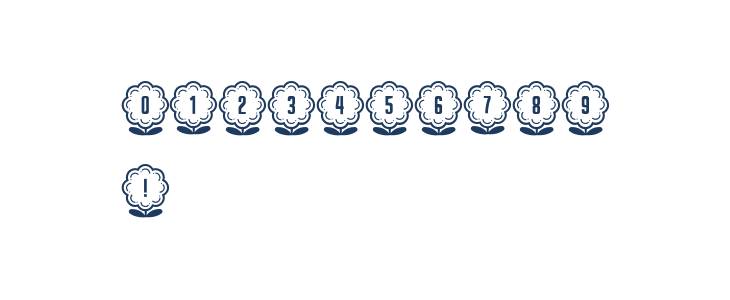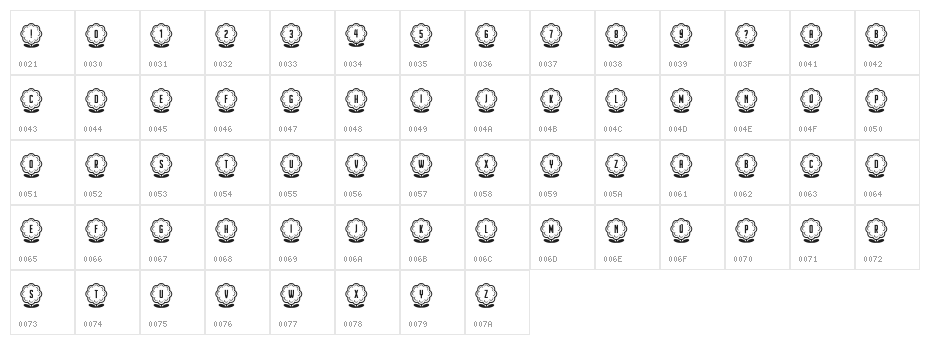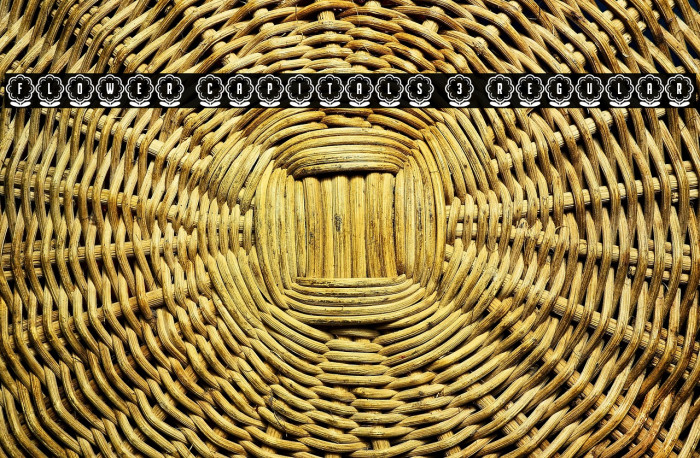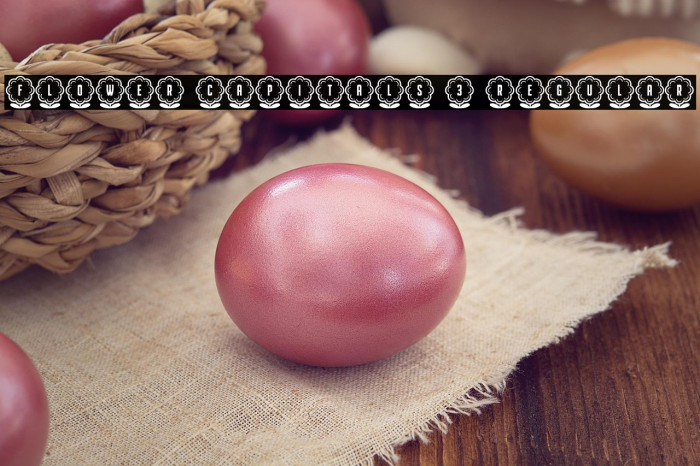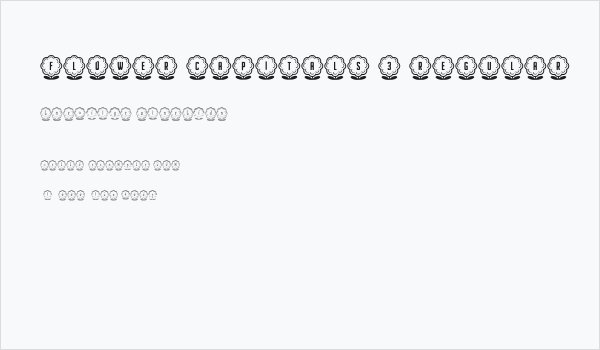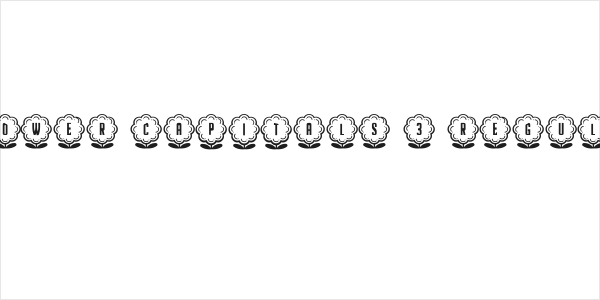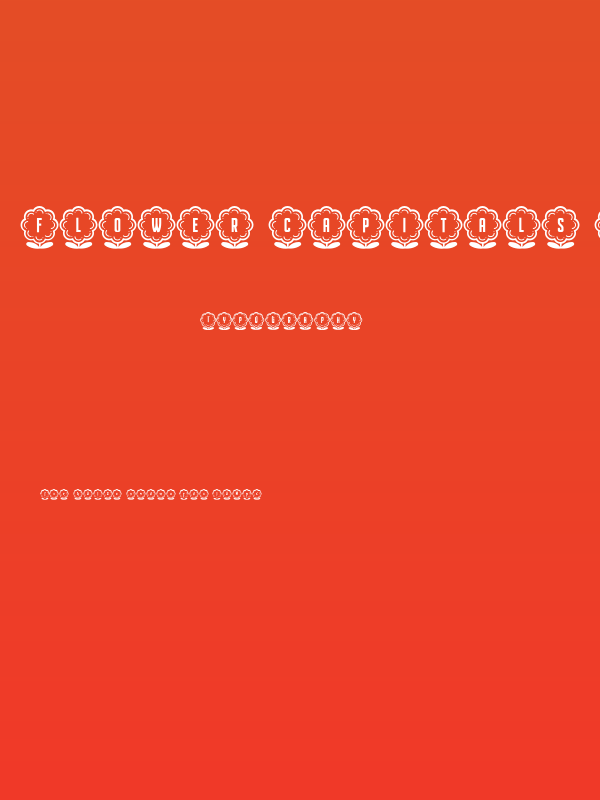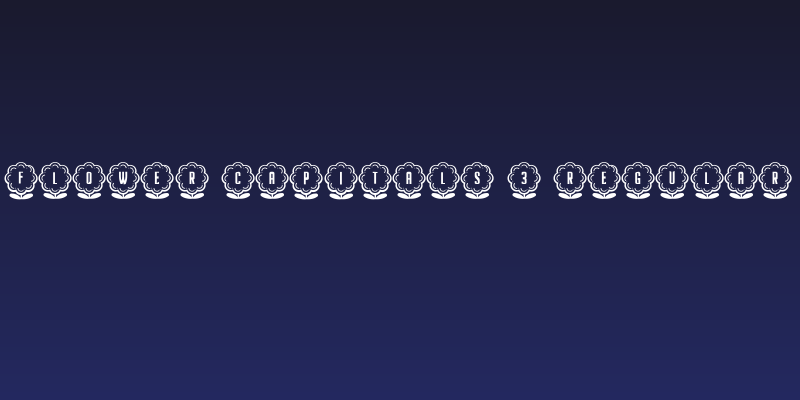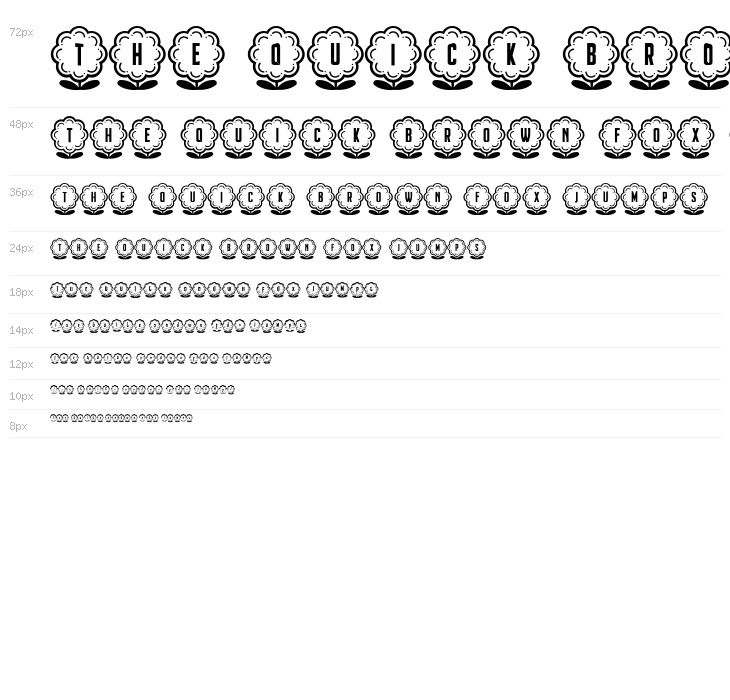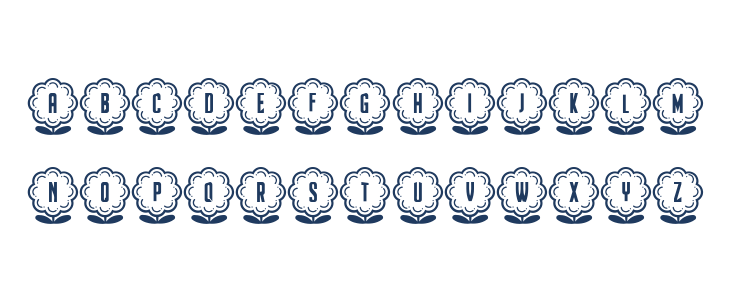
Flower Capitals 3 Regular Font
Flower Capitals 3 Regular Description
This decorative font features characters encased within stylized flower shapes, creating a playful and whimsical appearance. Each letter and number is centered within a bold, outlined floral design, making it stand out with a unique charm. The font is highly decorative, with each character surrounded by petal-like shapes that add a touch of elegance and creativity. The consistent use of floral motifs across all characters provides a cohesive and visually appealing look, suitable for projects that require a fun and artistic touch. The bold outlines and uniformity in design ensure readability while maintaining a distinct style.
| Proposed Projects | Ideal for children's books, greeting cards, event invitations, and playful branding projects. |